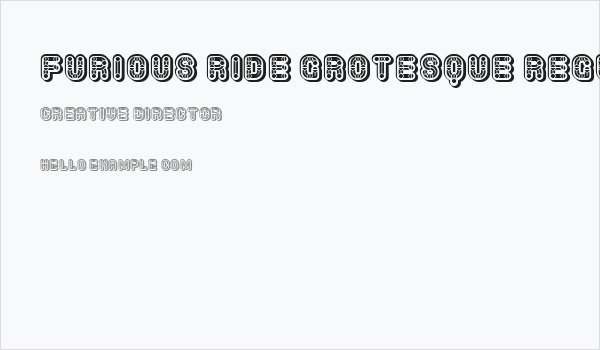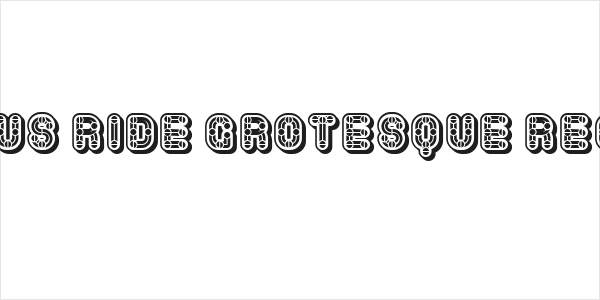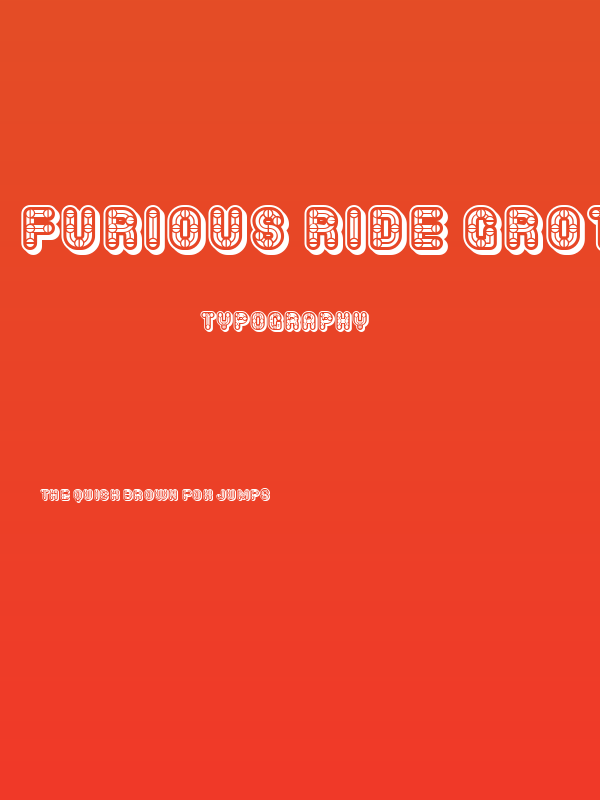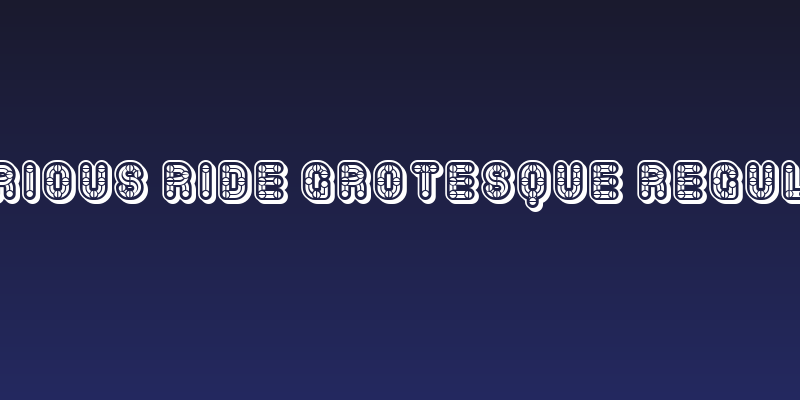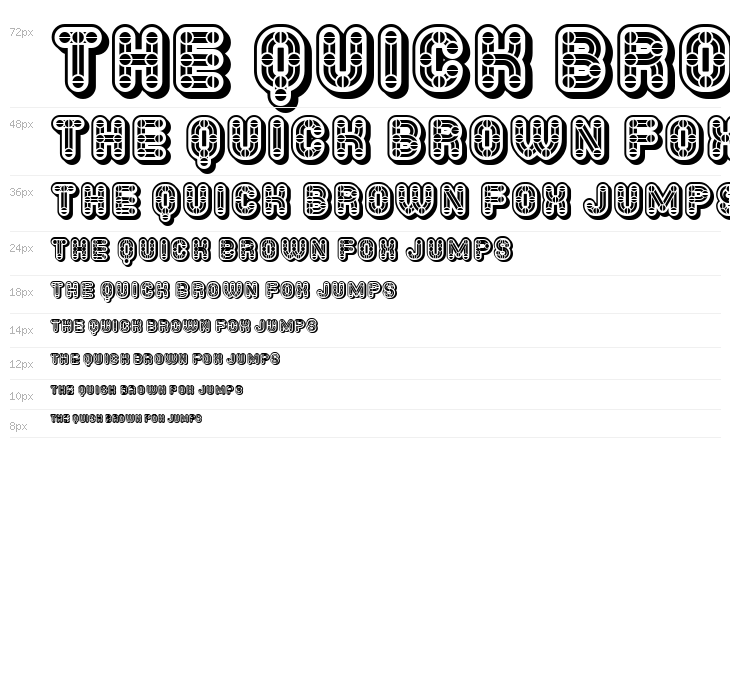
Furious Ride Grotesque Regular Font
Furious Ride Grotesque Regular Description
This font features a bold, decorative style with a unique, layered design that creates a sense of depth and dimension. Each character is outlined with a thick black border, enclosing intricate, interwoven lines that form the letter shapes. The geometric patterns within the letters give it a modern and dynamic appearance, making it stand out in any design. The uppercase letters are consistent in height and width, providing a uniform look across the typeface. This font is ideal for projects that require a strong visual impact and a contemporary aesthetic.
| Proposed Projects | Ideal for posters, logos, branding, and any design requiring a striking visual impact. |